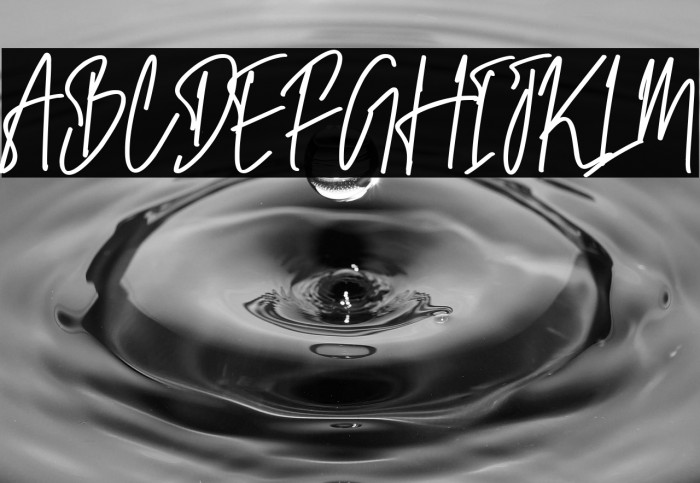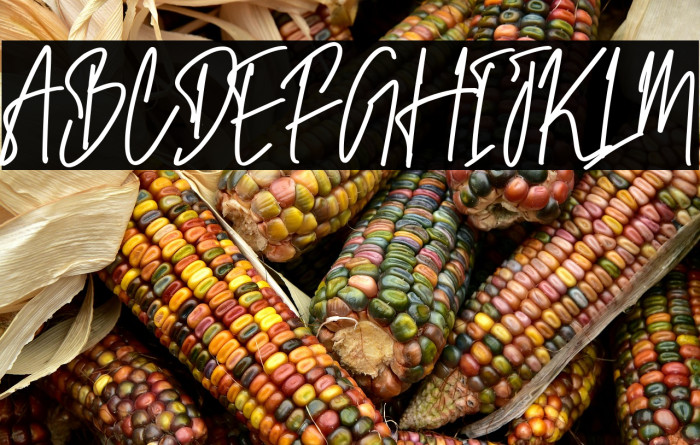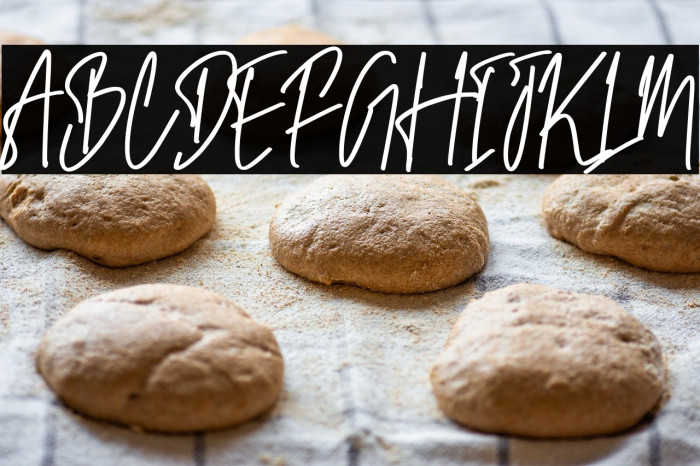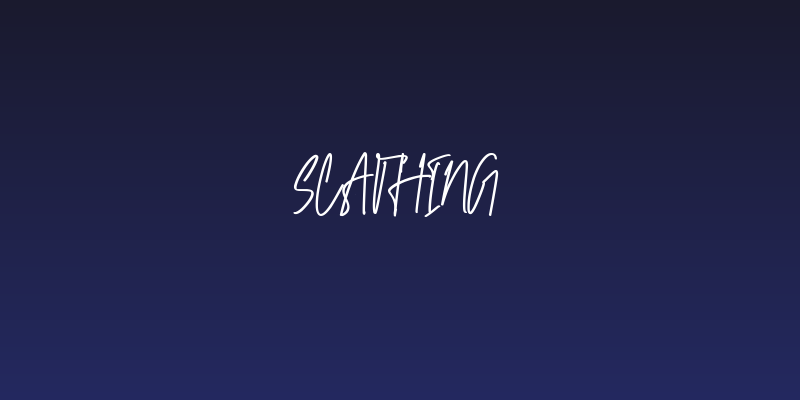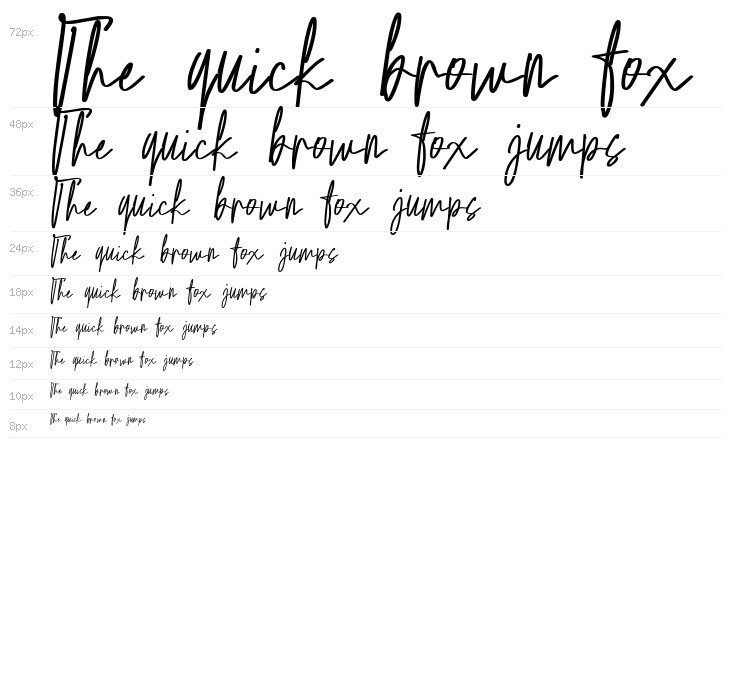
Scathing Font
Scathing Description
A dynamic and expressive handwritten script font with a casual and flowing style, featuring irregular strokes and a personal touch.
| Overall Style | Casual, Expressive |
| Use Case | Logos, Headlines, Personal notes |
| Proposed Projects | Greeting cards, invitations, personal branding. |